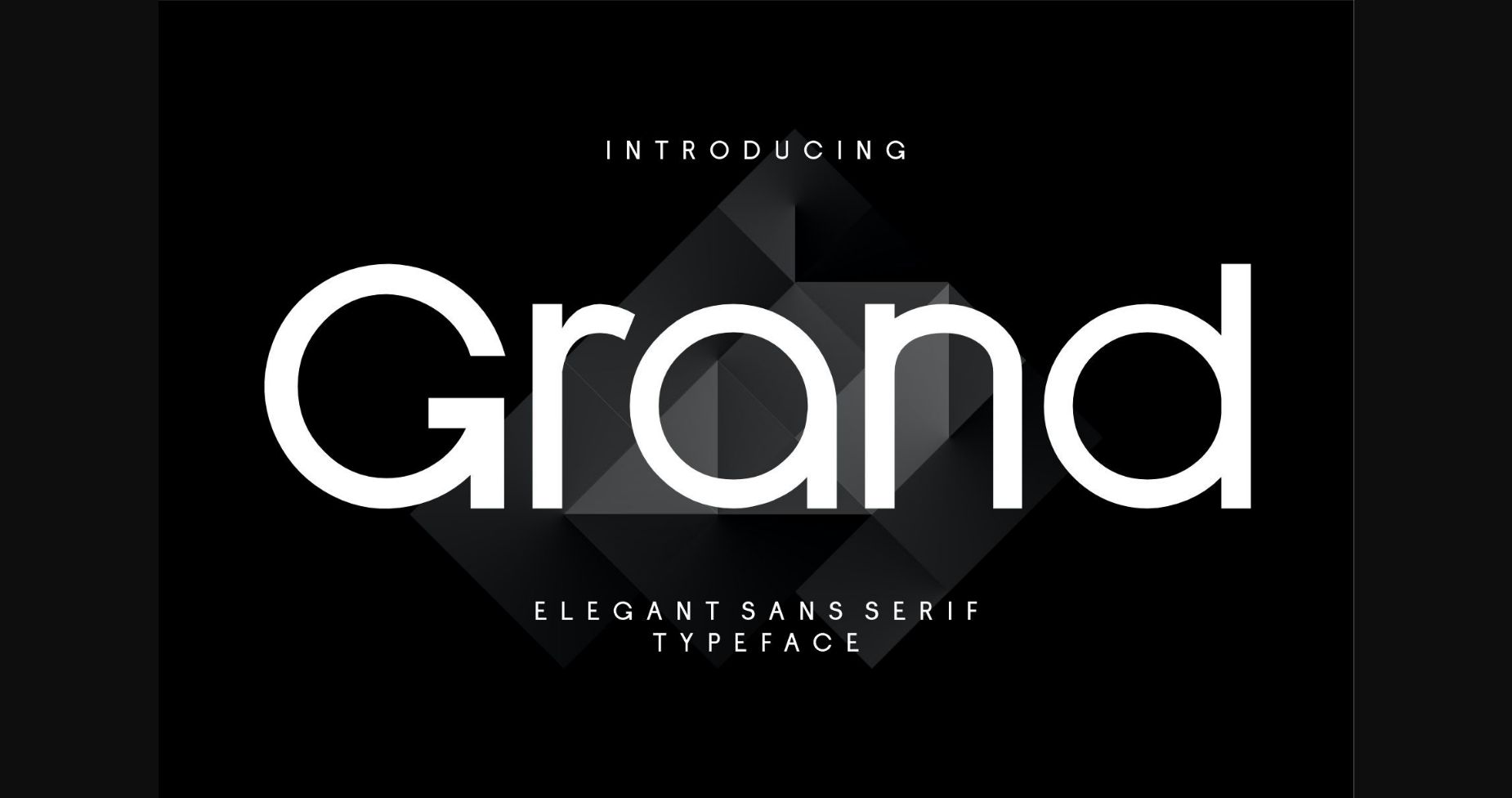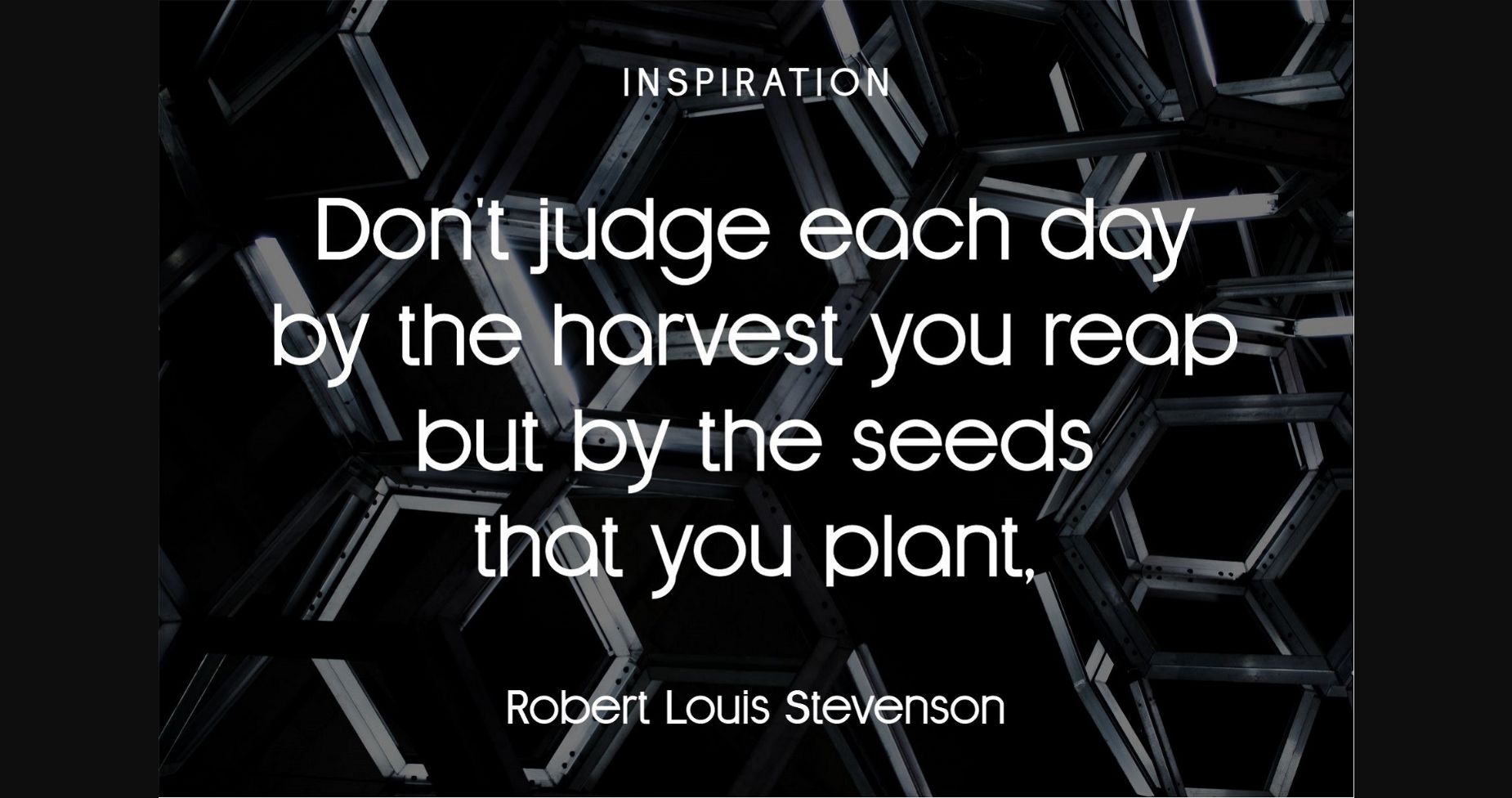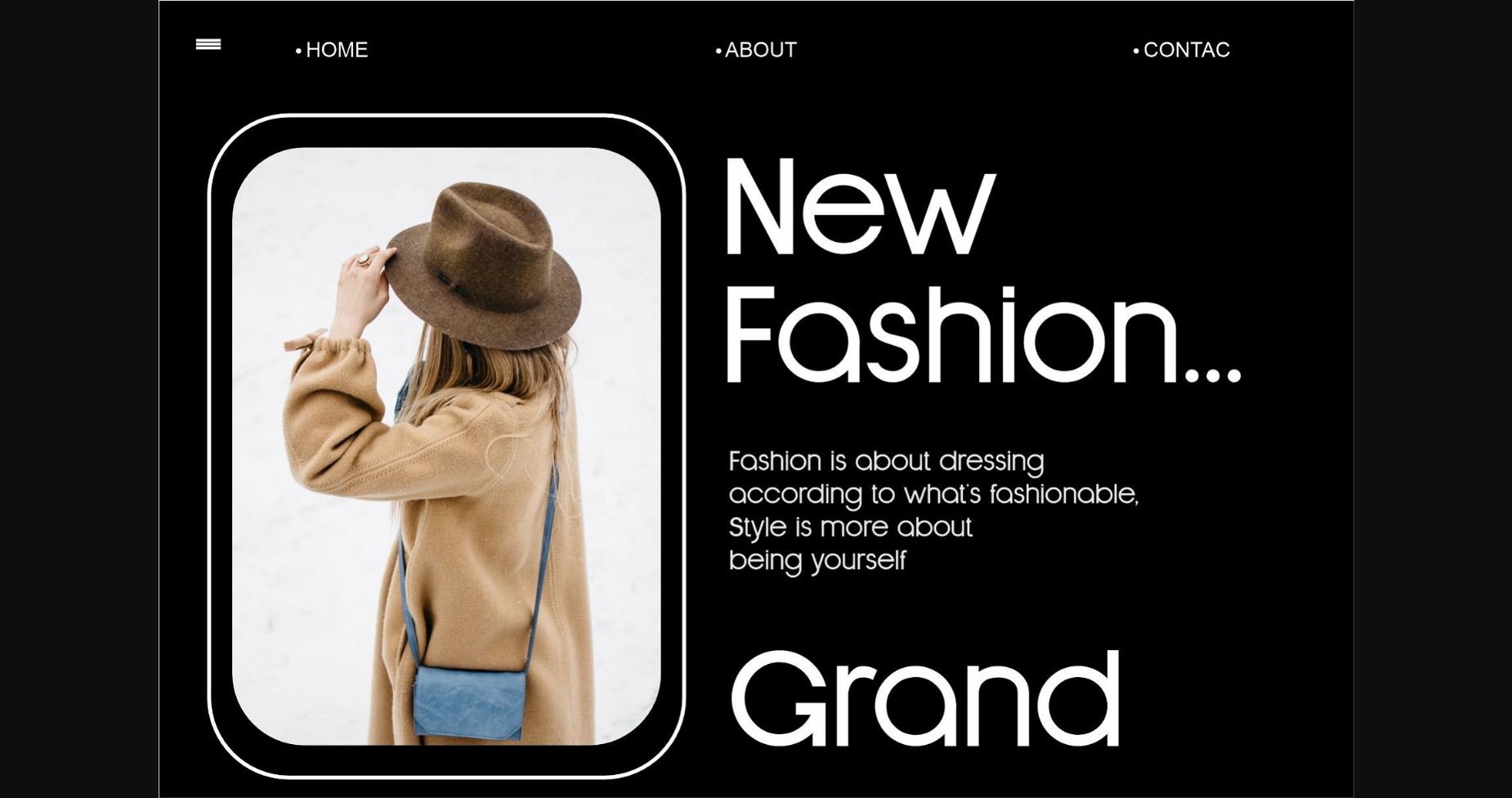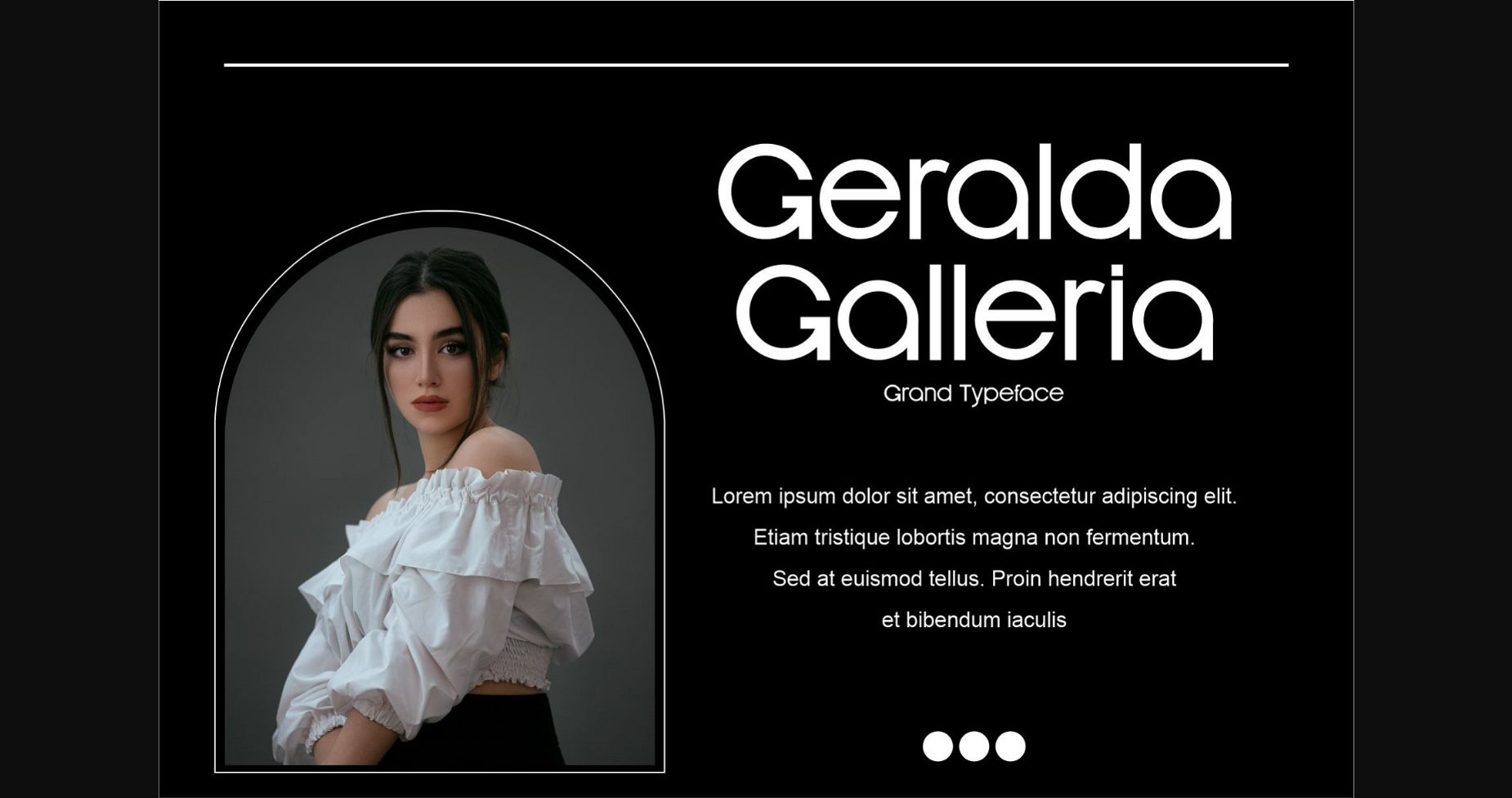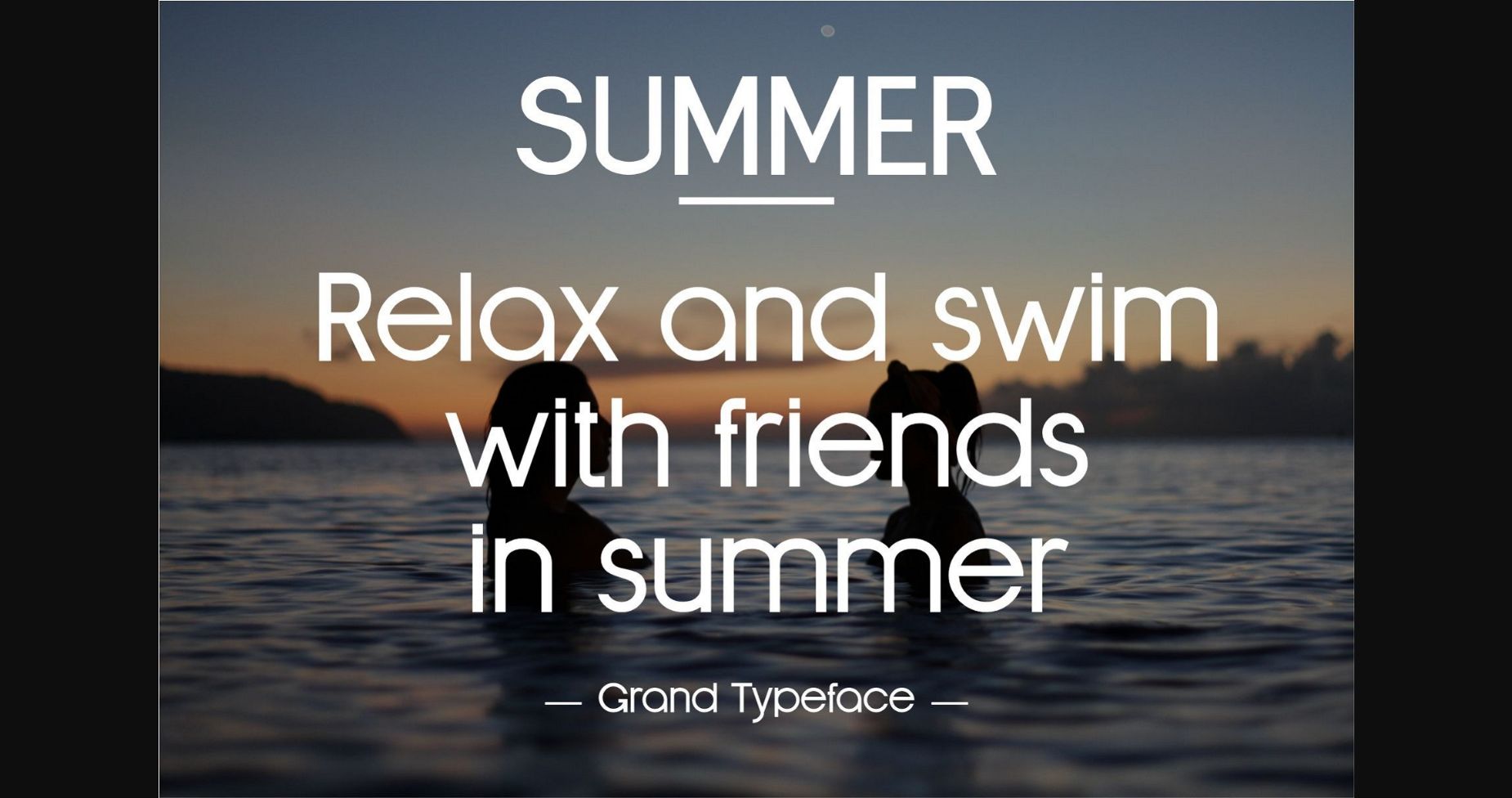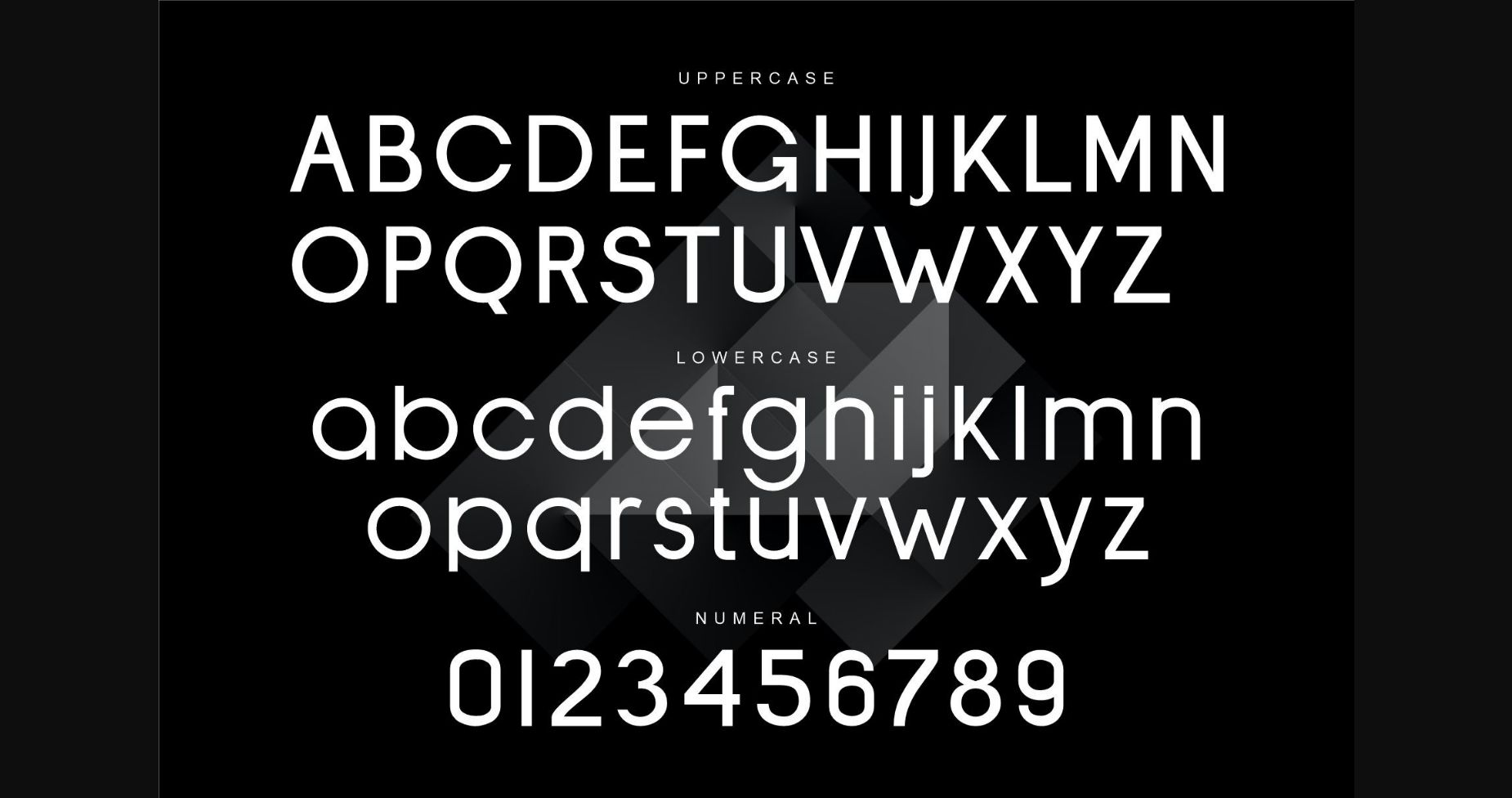
About Grand Font
**Grand** Modern Sans Serif Typeface inspired by the famous minimalist logo perfect for the purposes of designing templates, brochures, videos, advertising branding, logos, invitation, layout design, elegant crafting, beauty design and other